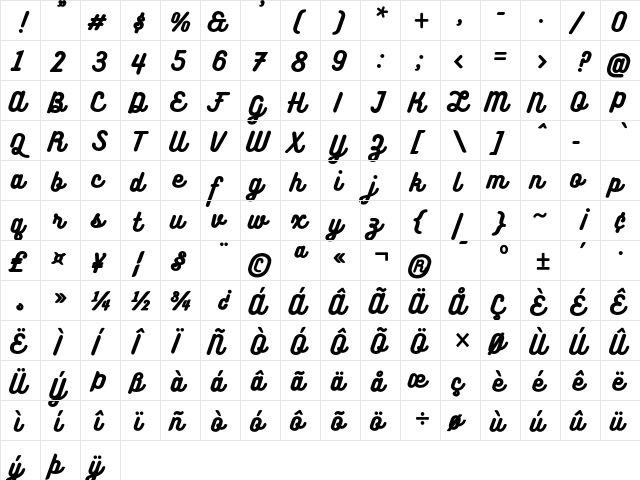
Bukhari Script Regular
| Foundry | Mikrojihad |
| Designer | Hendra Pratama |
Design Context for Bukhari Script Typeface
Bukhari Script flows with the natural rhythm of handwritten lettering, making it ideal for designs that call for warmth and personal expression.
Font Pairing: Combine Bukhari Script with a simple geometric sans for maximum contrast — the tension between flowing curves and clean structure is a classic typographic pairing.
Pro Tip: Pair Bukhari Script with a clean sans-serif for supporting text. The contrast between fluid script and geometric structure creates an elegant typographic hierarchy.